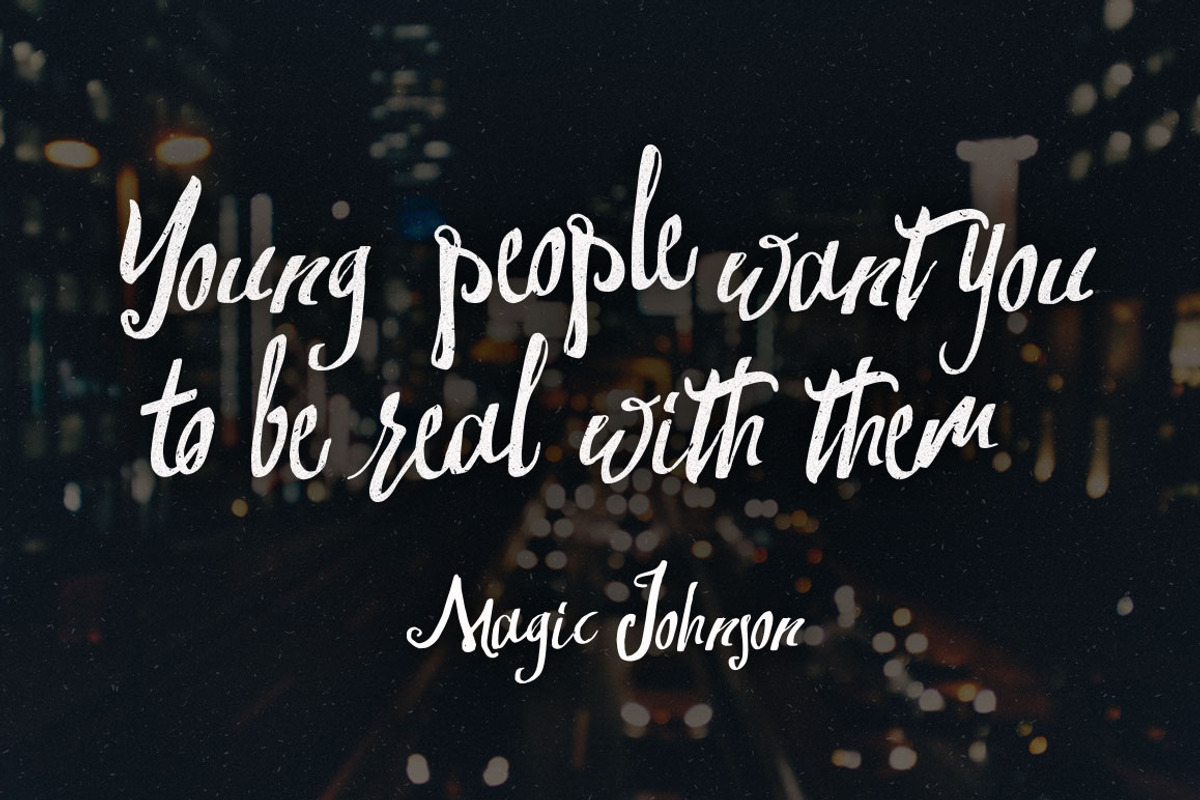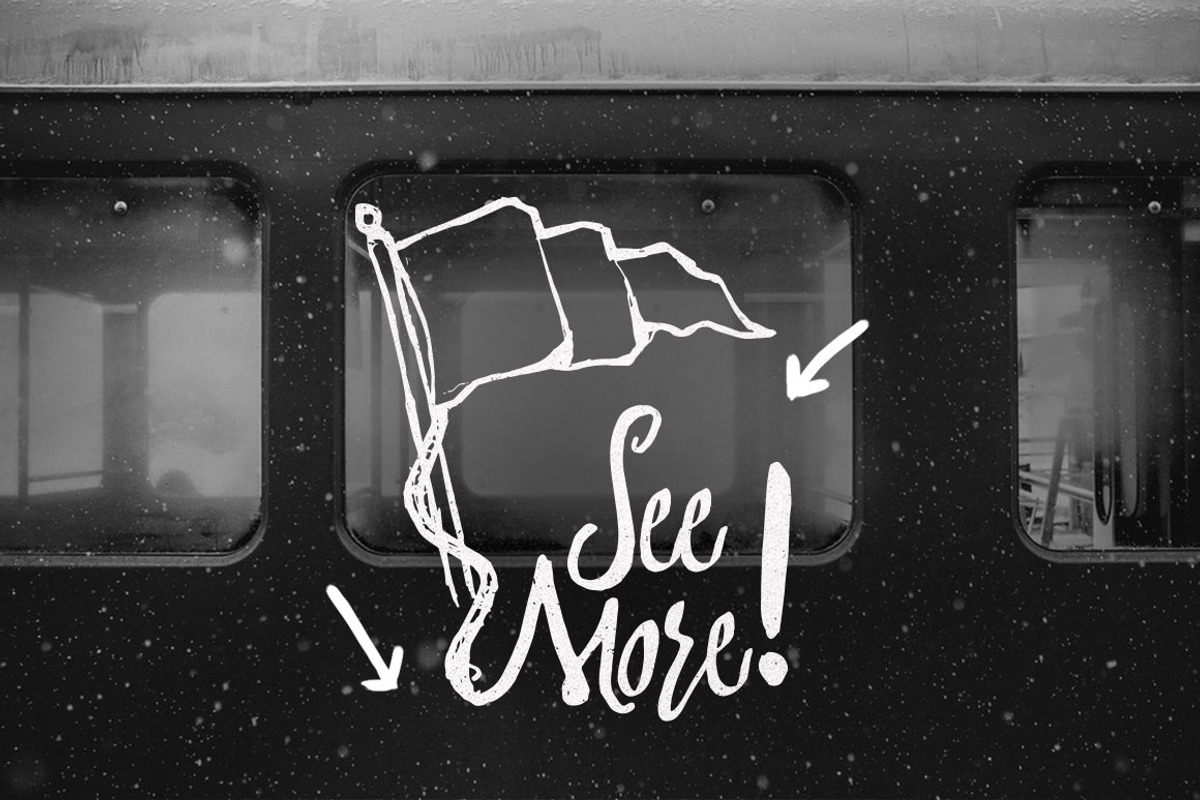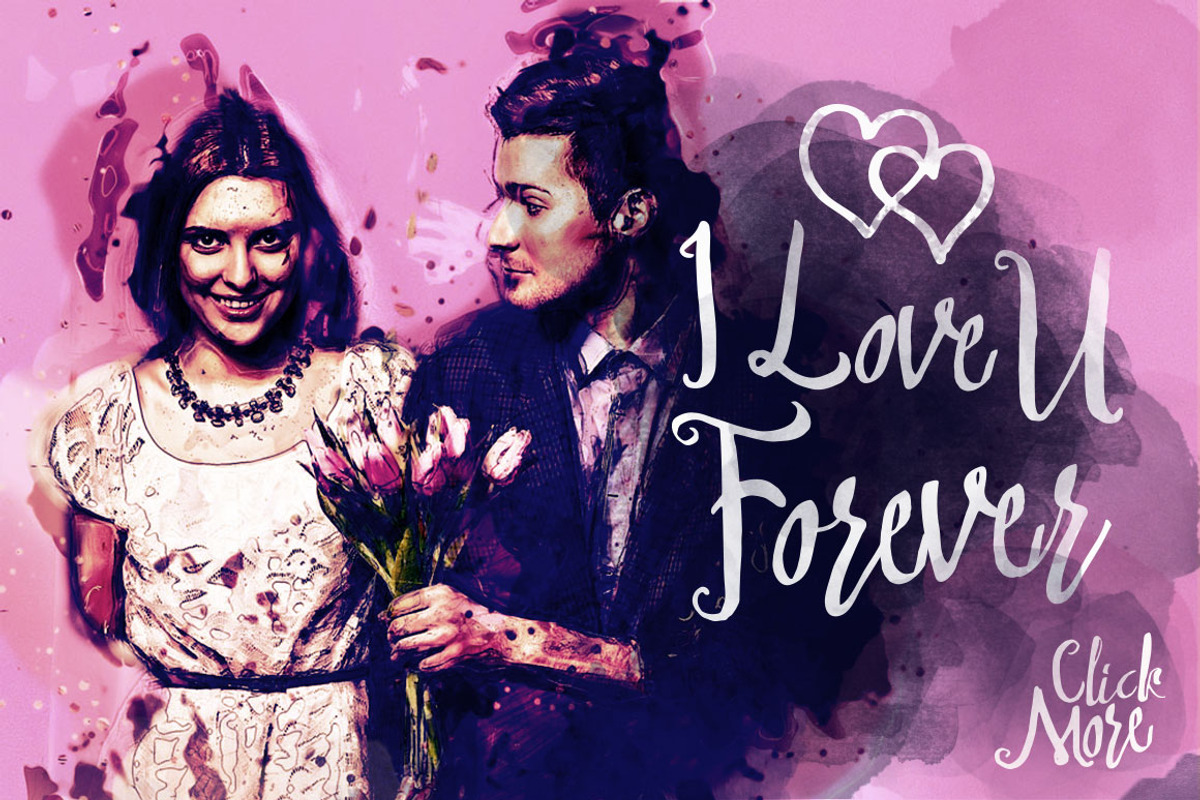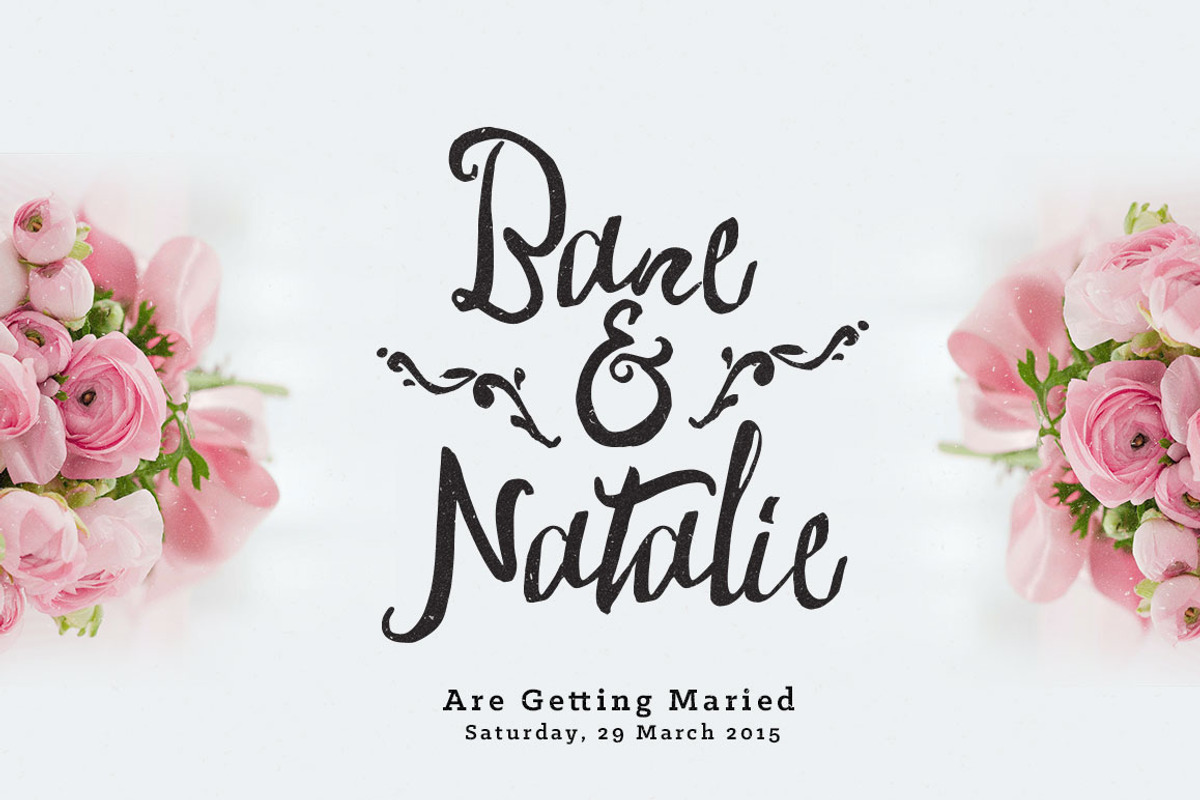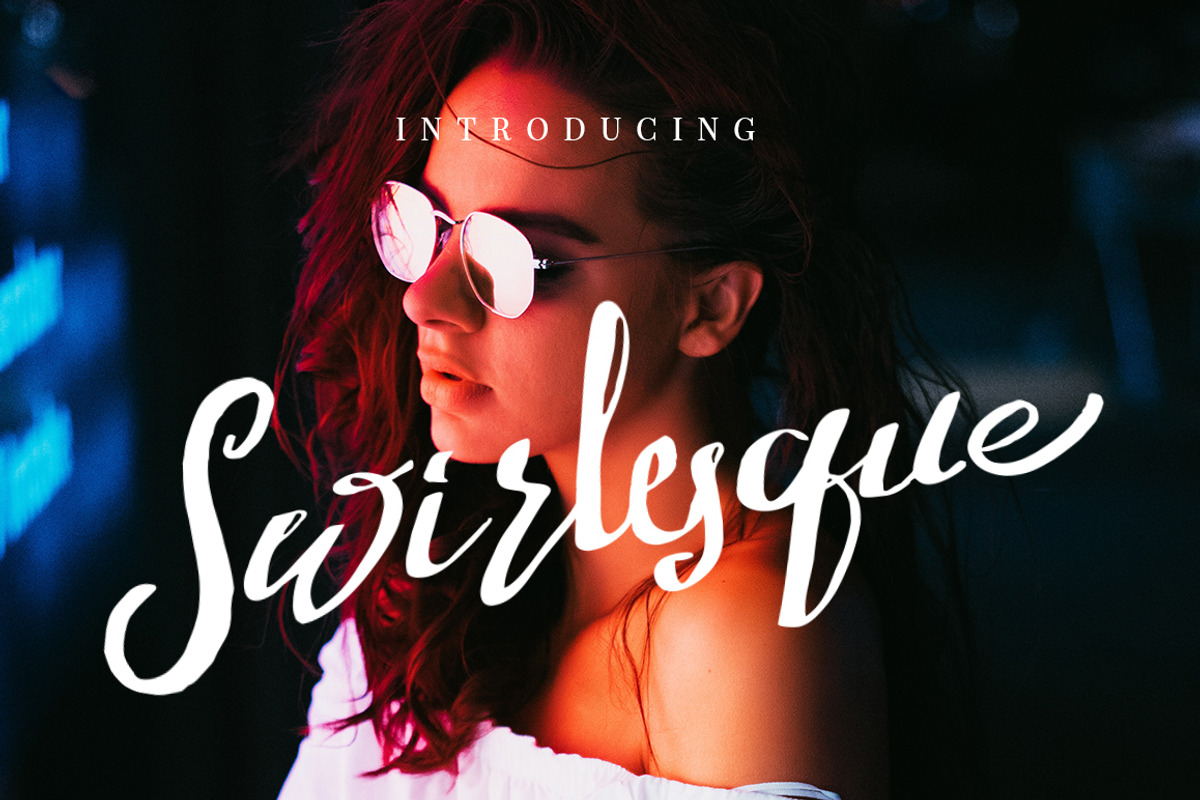
Swirlesque Typeface + Bonus
Introducing Swirlesque Typeface inspired by handwritten letters. I made it with a brush pen and then I trace with minor improvements to handle and some alternate characters to strengthen the natural impression. wild hand and imperfect flow give the natural looks. Combinations until 400 more glyphs.
Free feel explore your imaginations. Can be used for various purposes. such as headings, signature, logos, Event, t-shirt, quote, letterhead, signage, posters, badges etc.